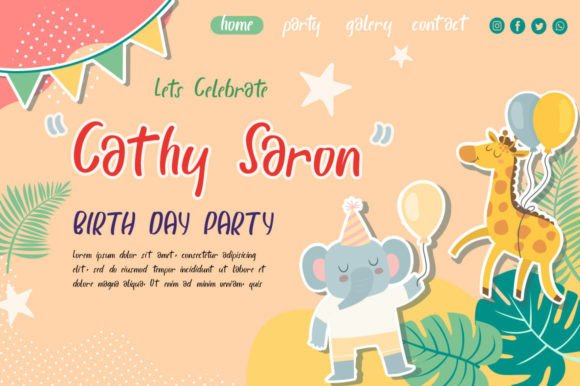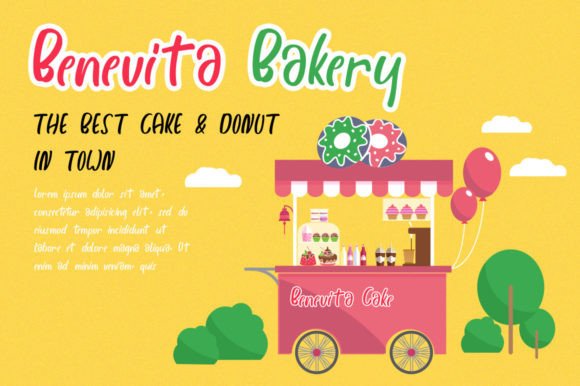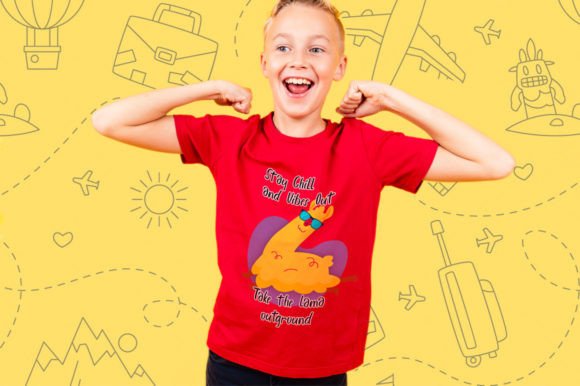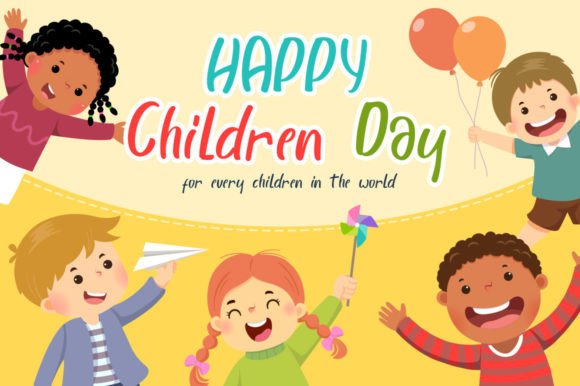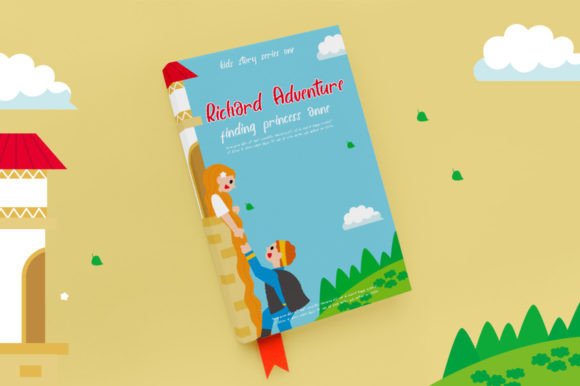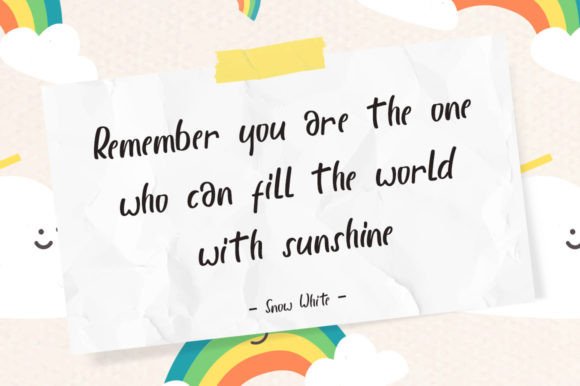
Introduction to Lilyana Flowers Font
The Lilyana Flowers is a cute and playful handwritten display font.
This fun, fancy font is perfect for logos, posters, menus, clothing, education projects, quotes, kids’ clothing, and others .